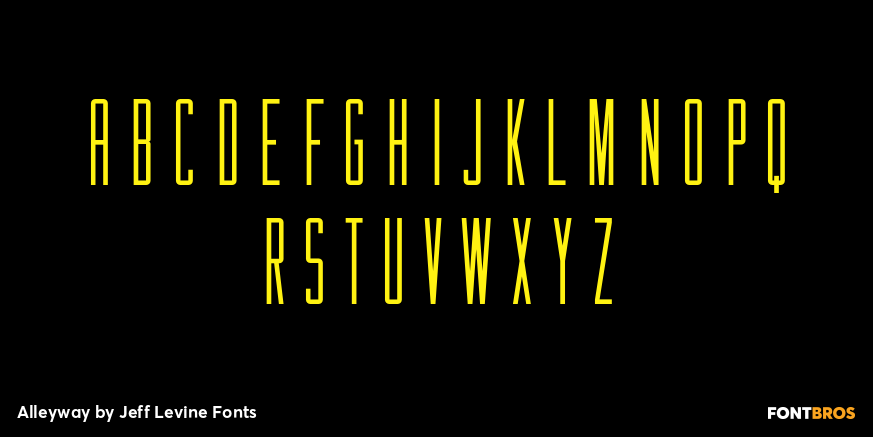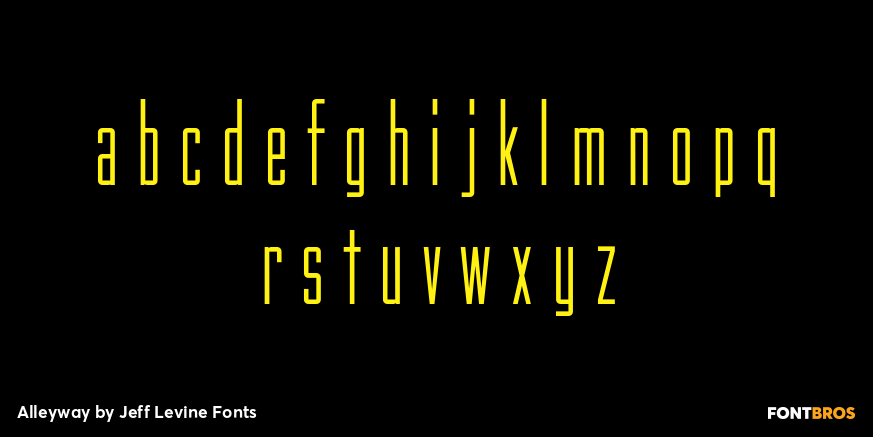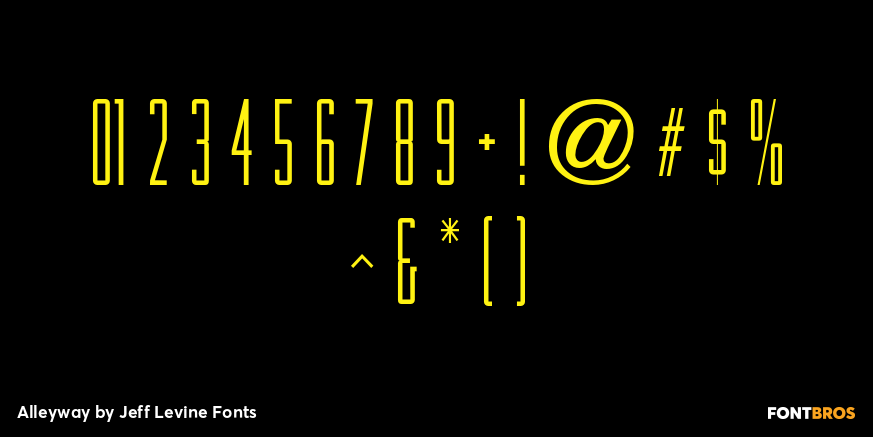
Alleyway
Alleyway JNL is an original typeface by Jeff Levine drawing heavily on Art Deco influences. It's elegant, condensed design is perfect for anything from invitations to letterheads to ad copy.
Available in both regular and oblique versions, Alleyway JNL is a crisp, clean alternative to the usual sanserif choices.